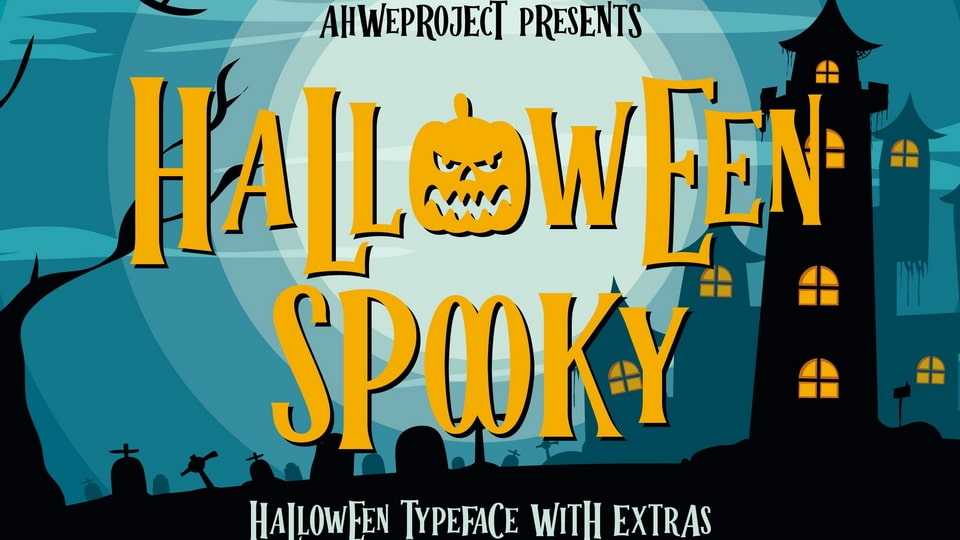
Download Halloween Spooky font, a typeface created to complement your Halloween Party. Add it to your Halloween crafts, horror movie posters, t-shirts, and anything else that requires a spectacular look.